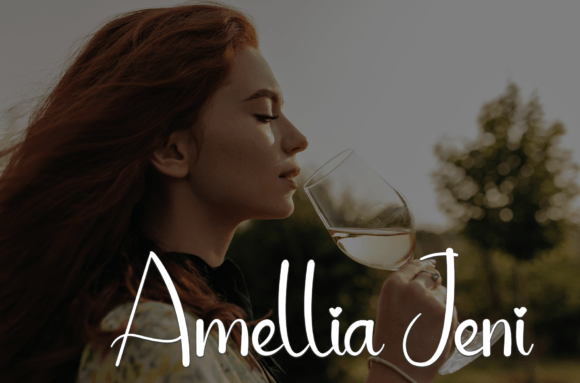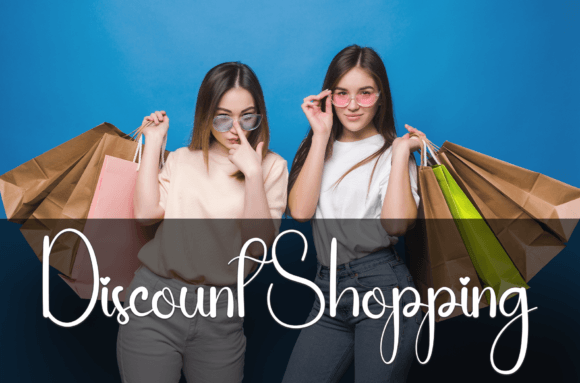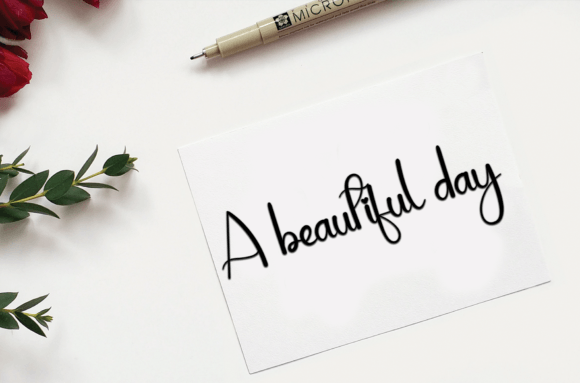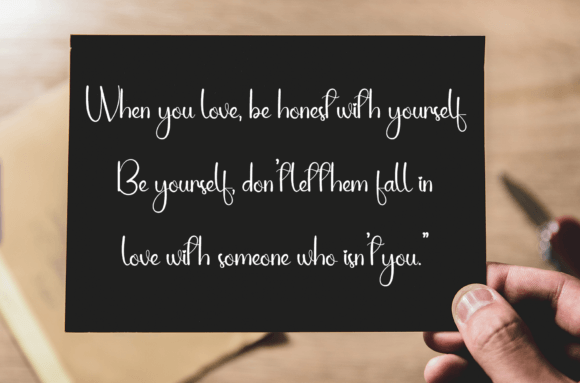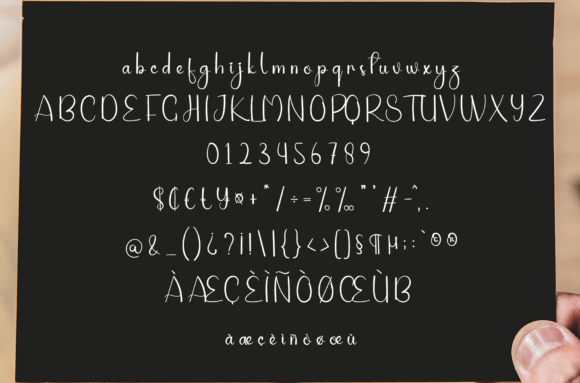
Discovering the Sweet Charm of Baby Flower Font
Do you ever find yourself rummaging through your grandmother’s old trunks, uncovering forgotten treasures and sentimental trinkets that evoke memories of a bygone era? For me, it’s those moments that spark the desire to create something truly special – a wedding invitation that whispers sweet nothings, a birthday card that brings a smile, or a design that radiates warmth and love.
Enter the Baby Flower Font, a charming handwritten script that embodies the essence of these tender moments. With its playful, relaxed feel, this font is the perfect companion for any design project that demands a touch of whimsy and romance. Whether you’re crafting a wedding invitation, a heartfelt card, or any other creative endeavor, the Baby Flower Font adds a lovable, down-to-earth charm that’s hard to resist.
As a designer, you’ll appreciate the versatility and charm that the Baby Flower Font brings to your work. Its friendly demeanor makes it an ideal choice for projects that require a gentle, approachable tone – and its unique character will undoubtedly set your designs apart from the rest.
Baby Flower Font Key Features
- Font Size: 300 glyphs, including uppercase and lowercase letters, numbers, punctuation, and special characters
- Unique Characteristics: Hand-drawn, whimsical design with delicate lines and subtle texture, perfect for children’s products, nursery decor, and feminine branding
- Font Style: Script, Casual
Baby Flower Font Review
As a designer, I was excited to dive into the Baby Flower Font and see what it had to offer. Overall, I’d say it’s a cute and playful font that’s perfect for projects where you want to add a touch of whimsy.
- The font’s unique, hand-drawn feel is really charming.
- The font is highly customizable, allowing you to adjust everything from the letter spacing to the stroke width.
- The font comes with a wide range of language support, making it a great option for international projects.
- The font’s design can be a bit overwhelming in larger text sizes, making it harder to read.
- The font lacks a bold weight, which can make it difficult to use in situations where you need to emphasize certain text.
- The font’s character set is not comprehensive, which may cause issues if you need to use certain special characters or symbols.
Overall, I think the Baby Flower Font is a great option for designers who want to add a touch of personality to their projects. While it has some limitations, its unique design and customization options make it a great choice for the right project.
Tips for Getting the Most Out of Baby Flower Font
Use the Baby Flower Font to add a touch of whimsy and elegance to your designs. Experiment with different font sizes, colors, and styles to create a unique look. Consider pairing the font with bold or italic text for added emphasis.
The Baby Flower Font is ideal for:
- Baby shower invitations and decorations
- Wedding stationery and decorations
- Children’s birthday party invitations and decorations
- Illustrations and graphics for children’s books and magazines
Comparison to Baby Flower Font: While Baby Flower Font has a more playful and whimsical feel, Great Vibes Font is more sophisticated and elegant. Great Vibes Font is a better choice for formal designs, while Baby Flower Font is better suited for more casual projects.